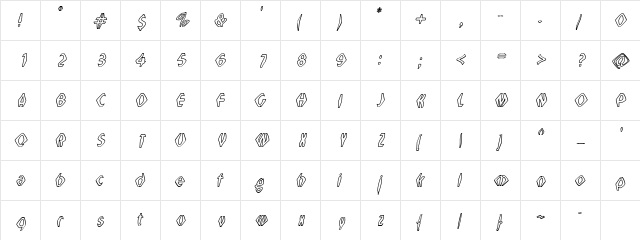
Dross04HollowSlanted Regular Font Preview
Dross04HollowSlanted Regular
Design Context for Dross04HollowSlanted Typeface
Dross04HollowSlanted is a composed and adaptable typeface that performs quietly and consistently across a wide range of design contexts. The dynamic lean of this cut emphasises speed and emphasis in any layout.
Pro Tip: Use Dross04HollowSlanted for emphasis, pull quotes, and subheadings where its slanted energy can add rhythm to the layout.